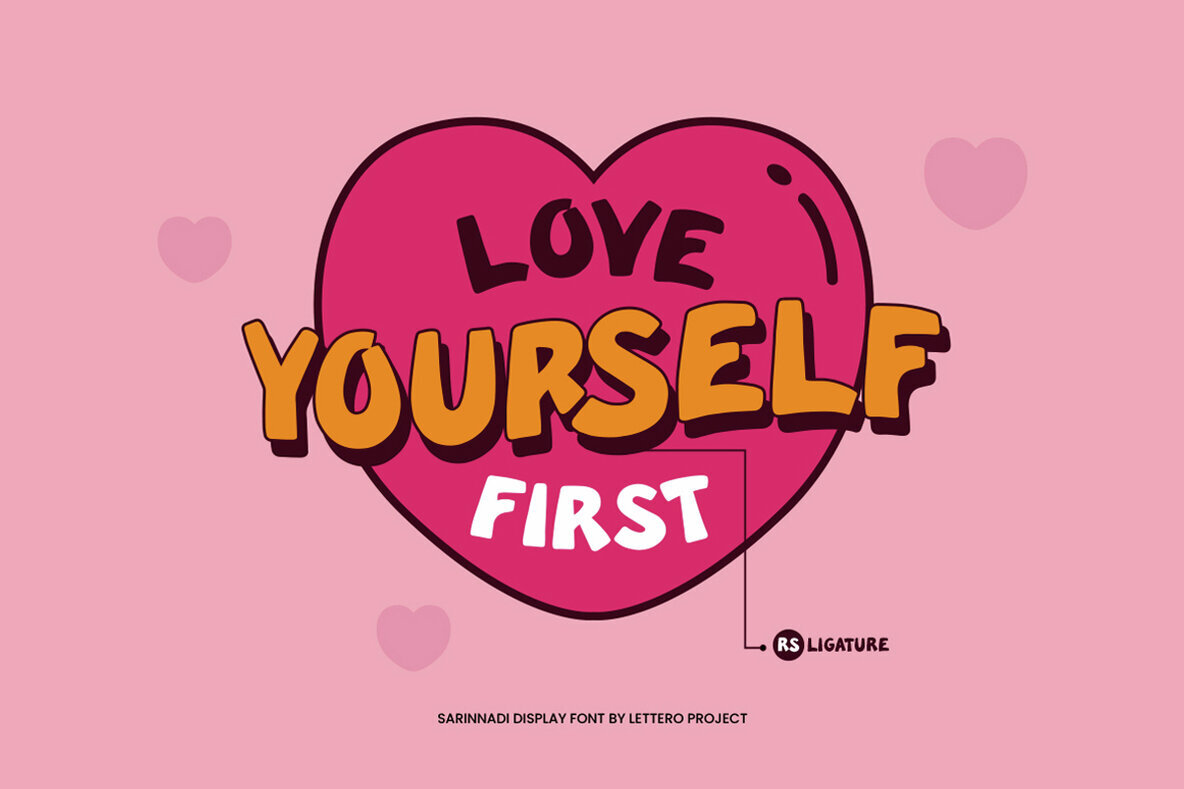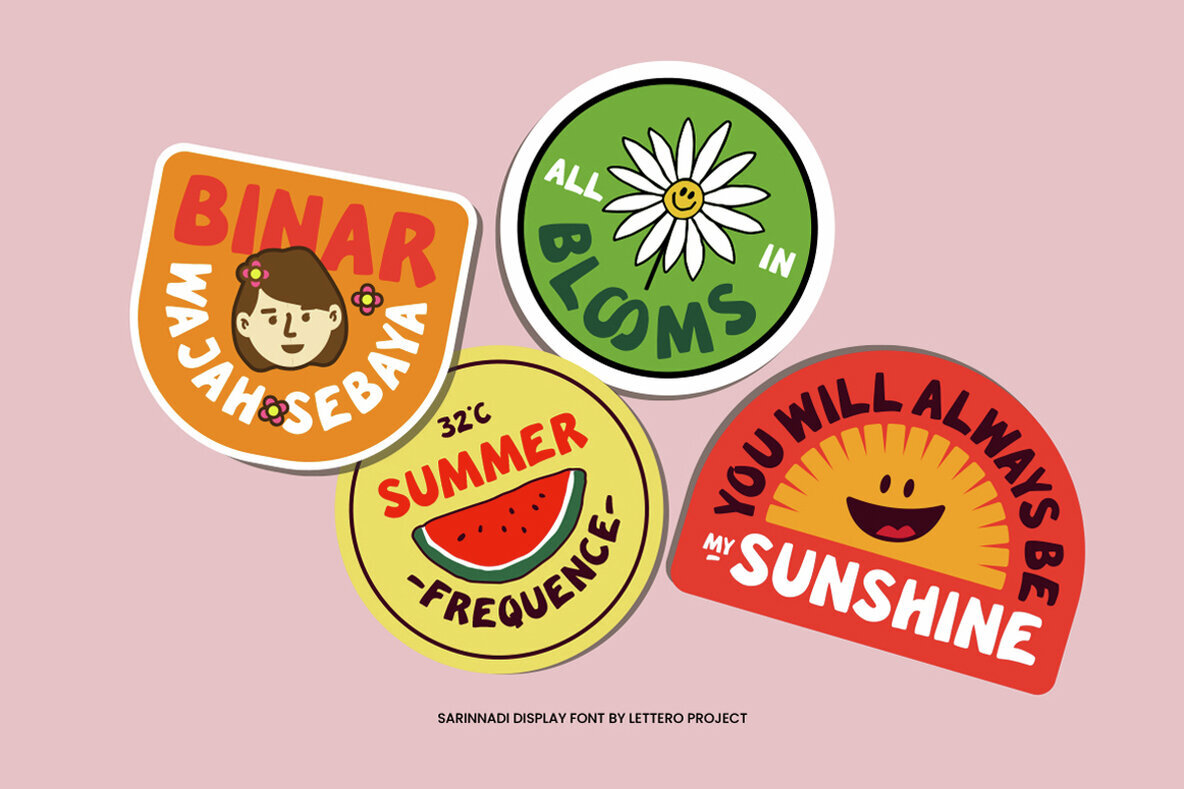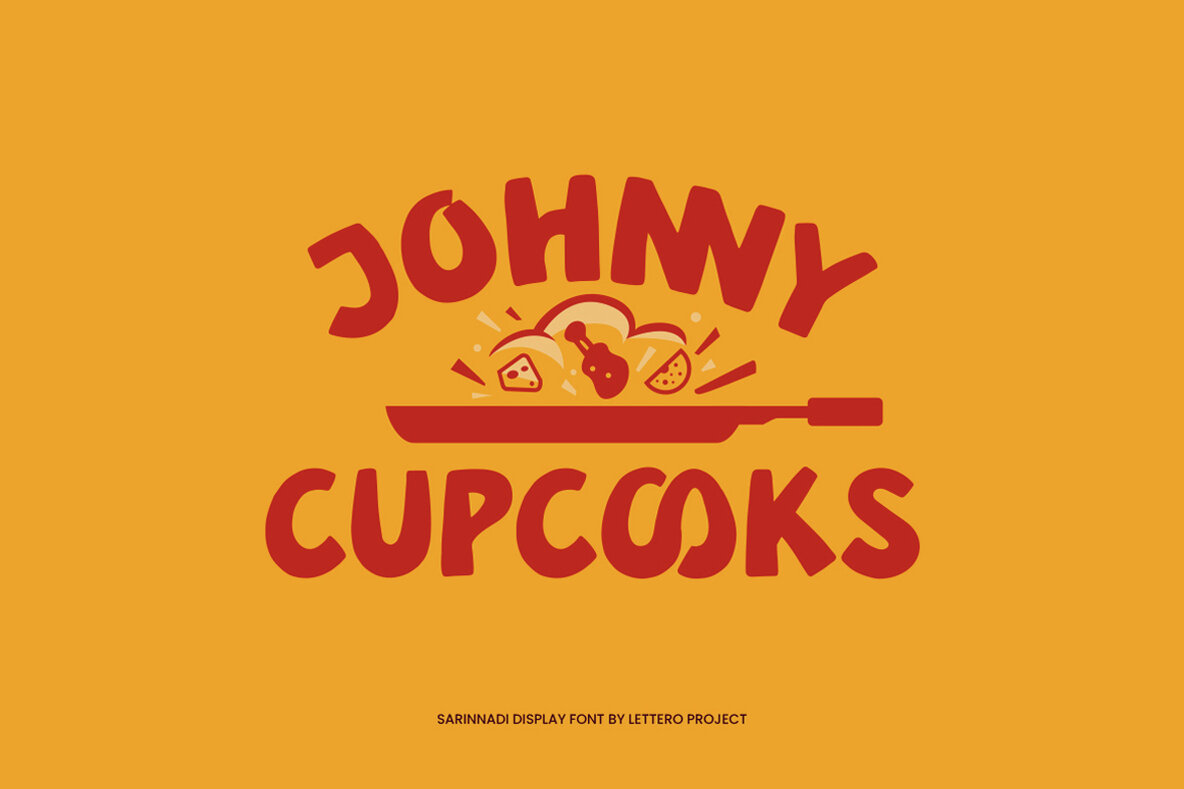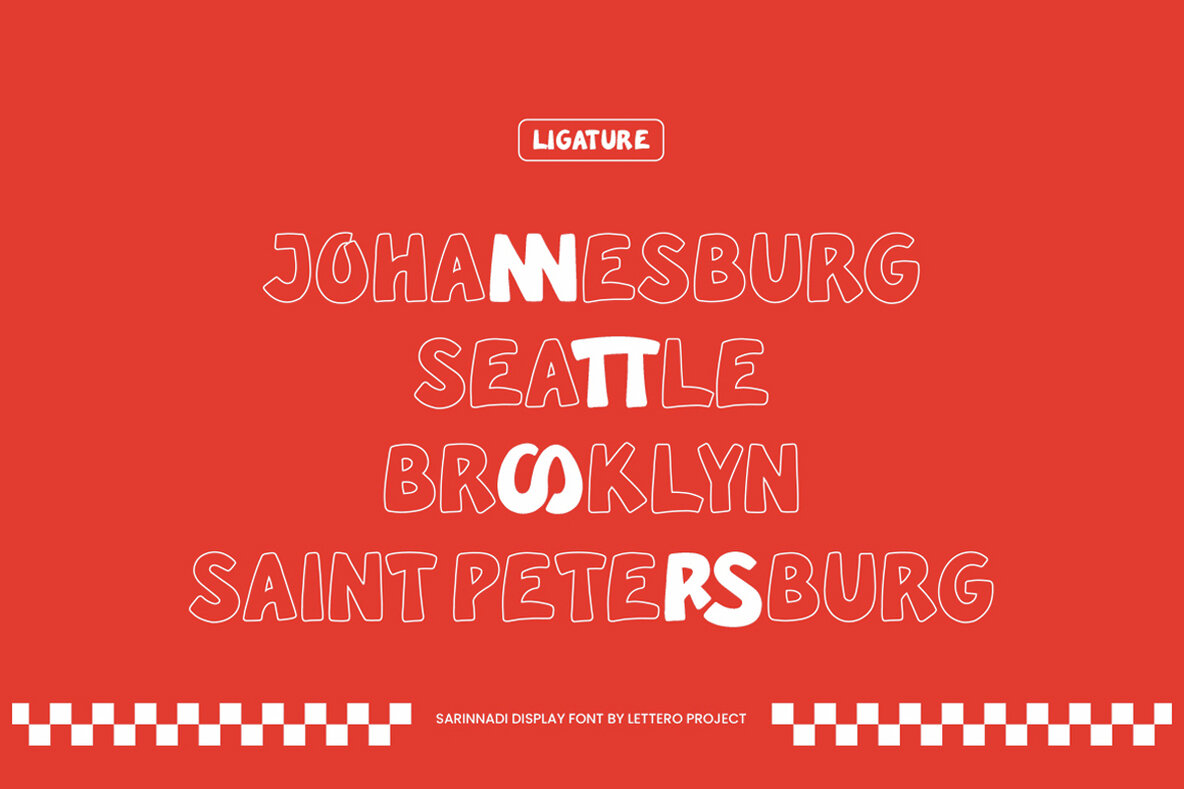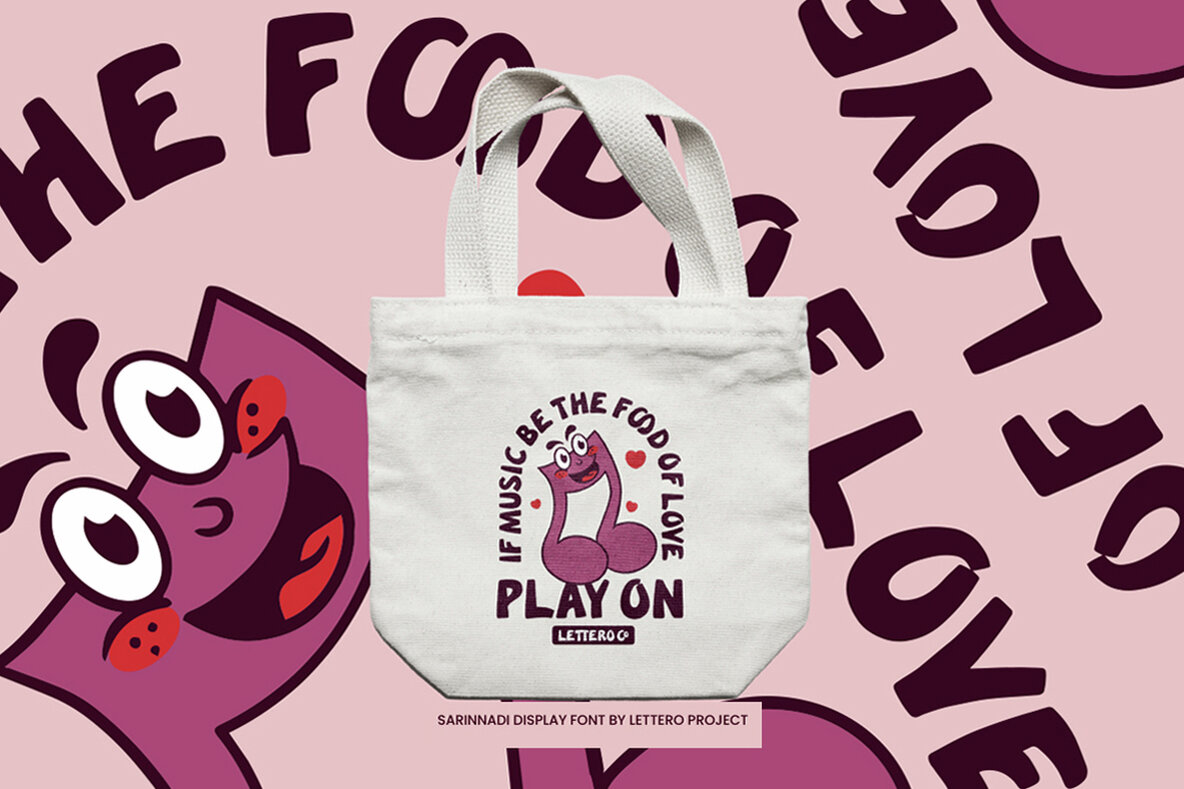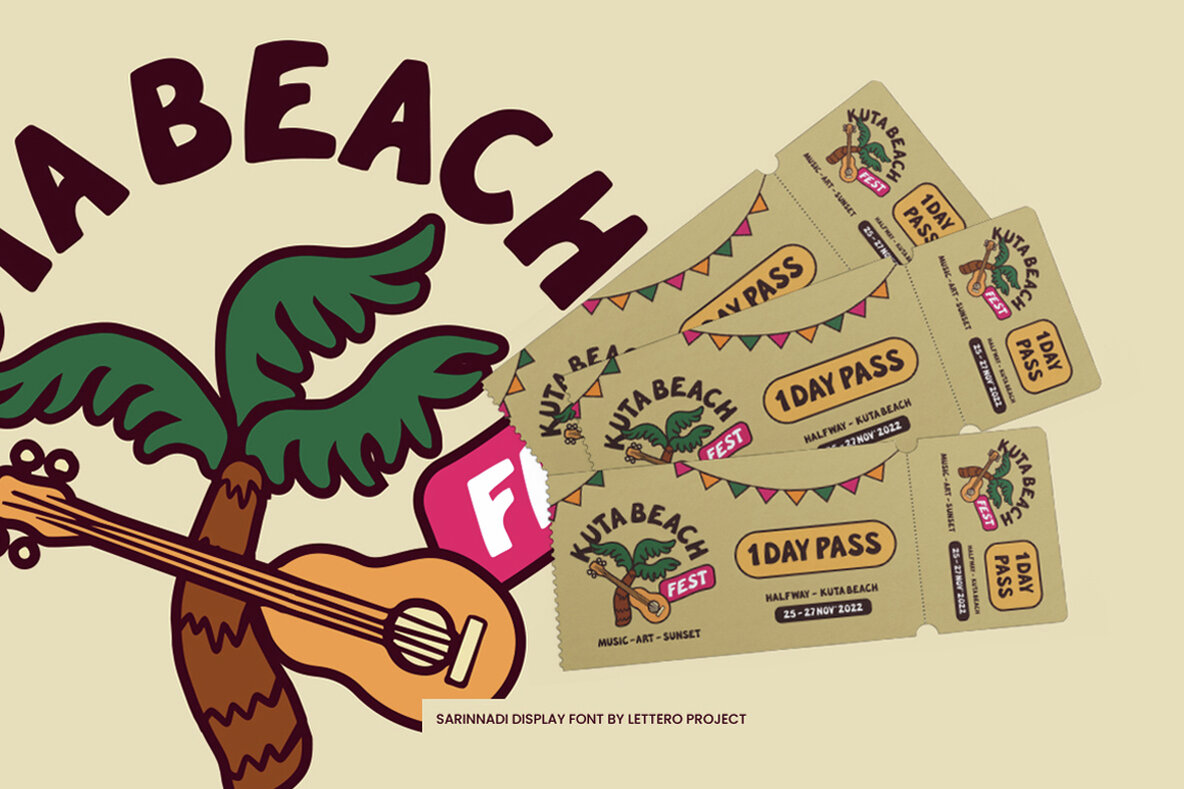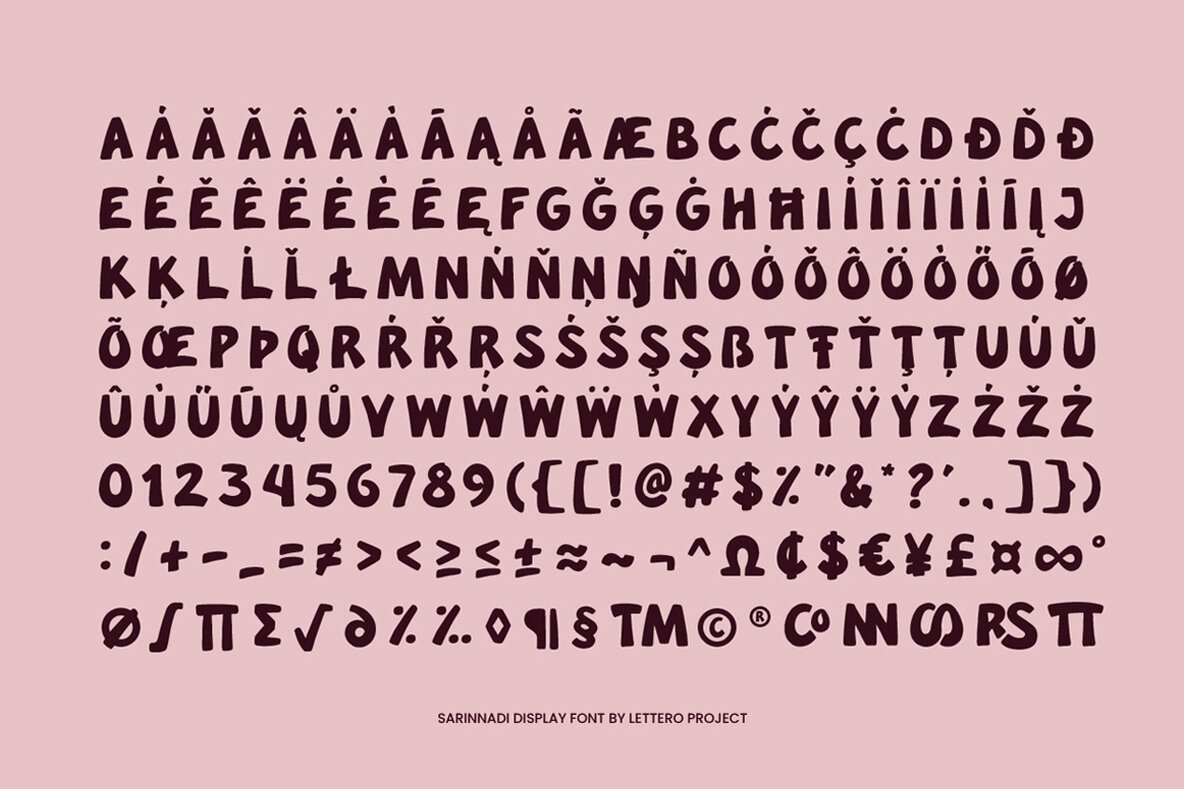
Sarinnadi Font
LP Sarinnadi Regular
Sarinnadi is a superfun display font with chubby and rounded shape. Sarinnadi will look perfect for headline on many product like book, poster, sticker, t-shirt, logo, packaging, kid’s stuff etc. Sarinnadi font has multi-language support, and ligature. Please enjoy the Sarinnadi font and let’s makes some fun designs.